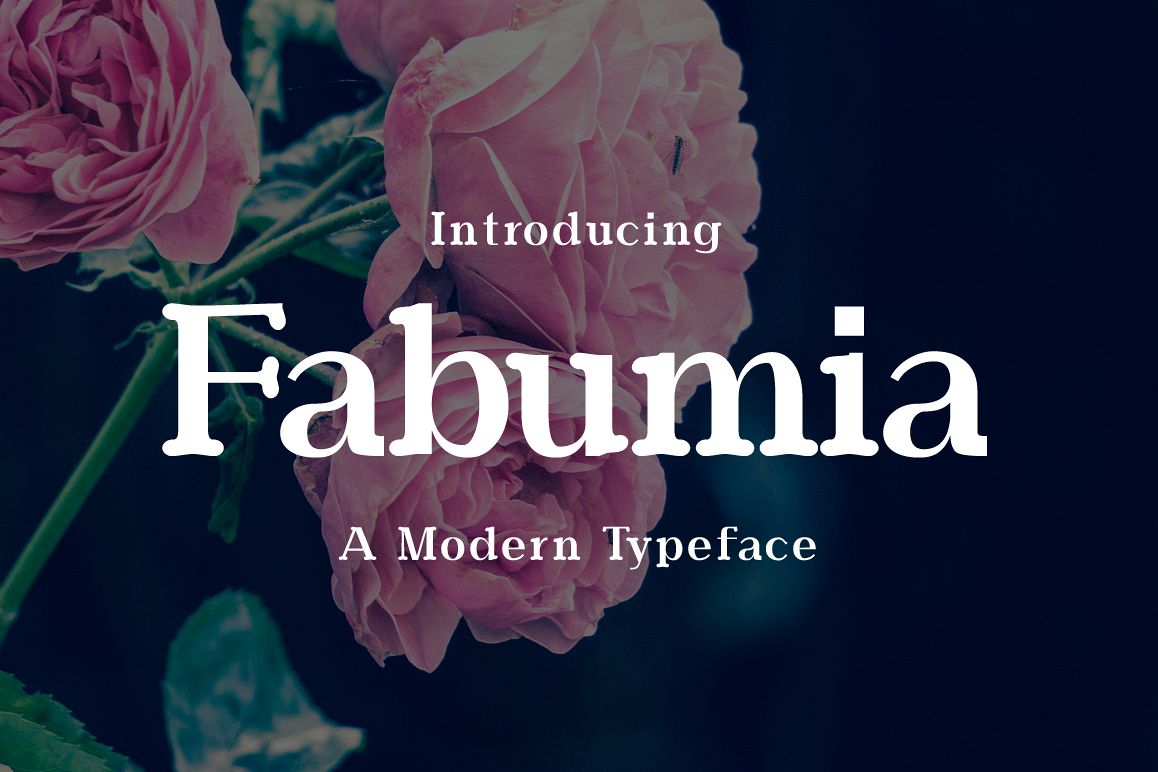
Introducing Fabumia!
Fabumia is a fresh & modern font. Fabumia is perfectly suited to stationery, logos, t-shirt, paper, print design, website header, photo frame, flyer, music cover, poster, image slider and much more.
• Numerals
• Punctuation
Includes a range of multilingual support